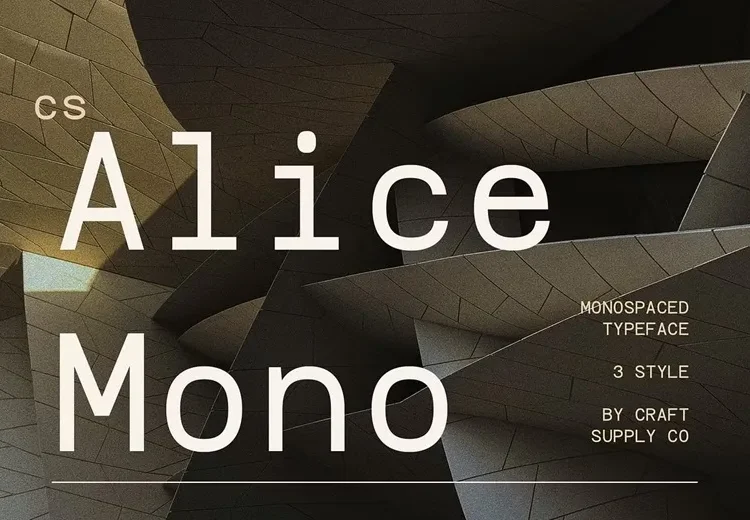
CS Alice Mono Font
CS Alice Mono is a modern monospace sans serif font, designed with a focus on clarity and readability. Its consistent letter spacing ensures that each character is distinguishable, making it ideal for a wide range of applications, from coding to technical documentation. The minimalist and clean design makes it a versatile choice for both business and technical purposes.
Whether you are creating digital interfaces or detailed technical reports, CS Alice Mono offers the necessary precision and ease of use, ensuring that your text is both legible and visually appealing. This makes it an invaluable tool for any project that demands clear communication and accuracy.